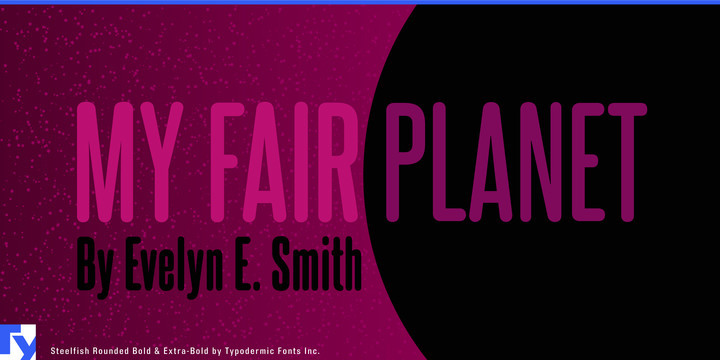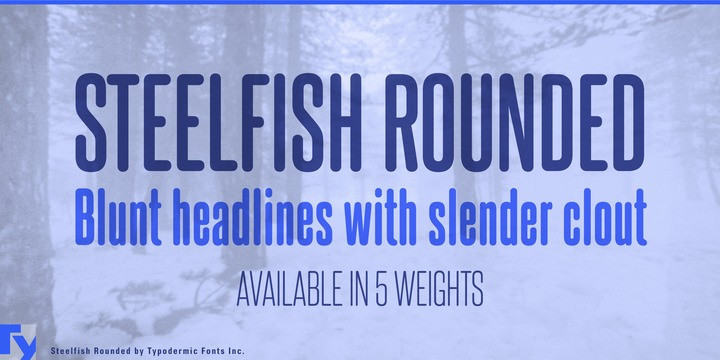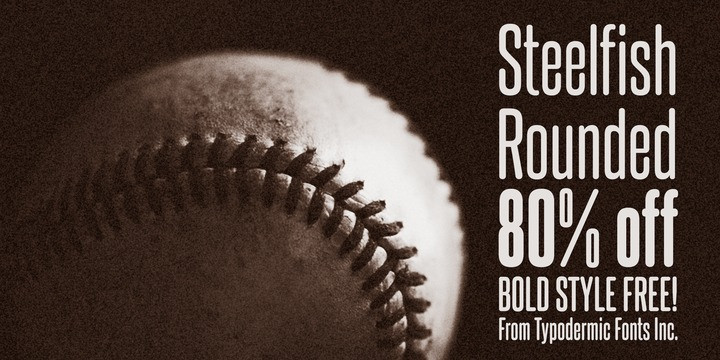
Steelfish Rounded Font Family
About this font family
Steelfish Rounded is a compact headliner based on the popular typeface, Steelfish. Steelfish Rounded avoids modern-day stylistic touches and antique ornamentation, allowing it to swim stealthily through historical and contemporary themes. Almost all current Latin alphabet based languages are supported as well as Greek and Cyrillic.